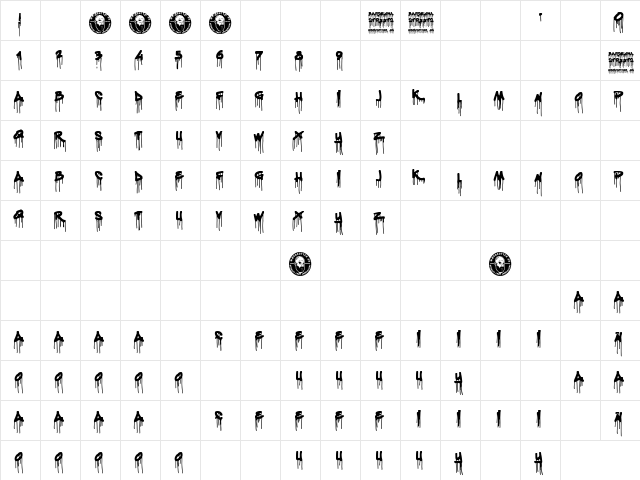
Barcelona Streets Regular
| Designer | Woodcutter Manero |
Design Context for Barcelona Streets Typeface
Barcelona Streets is a composed and adaptable typeface that performs quietly and consistently across a wide range of design contexts.